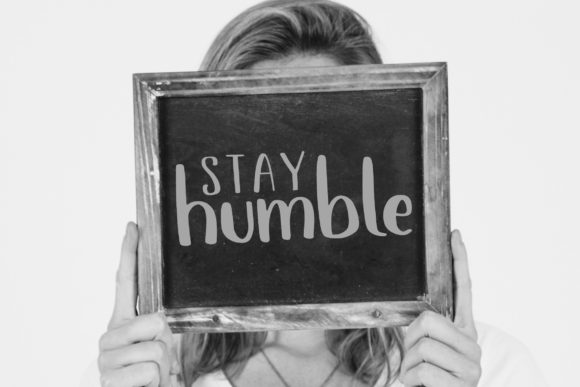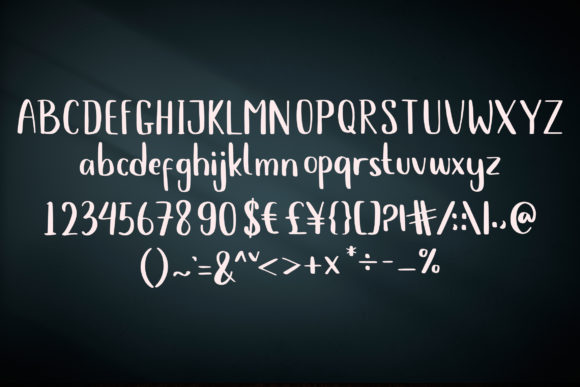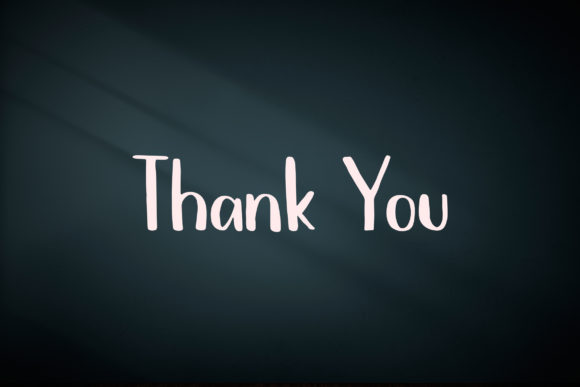
The Power of a Simple yet Elegant Font
You know that moment when a project just clicks into place, and everything starts to feel cohesive and beautiful? That’s exactly what happened when I stumbled upon the Humble Font. It’s a display font that exudes a sense of coolness and trendiness, making it the perfect addition to any design project.
As a versatile display font, Humble Font is designed to elevate any creation, whether it’s a social media post, a logo, or a marketing campaign. Its unique character and style have the potential to make your designs stand out from the crowd, and that’s exactly why it’s a valuable asset for designers.
Humble Font Key Features
- Font Family: Humble Font is a sans-serif typeface with a friendly and approachable feel.
- Language Support: Includes comprehensive language support, including Latin, Cyrillic, and Greek alphabets, covering multiple languages and scripts.
- Unique Characteristics: Features a distinctive, rounded shape with subtle rounded corners, giving it a friendly and approachable feel.
Humble Font Review
As a designer, I’ve had the chance to play around with Humble Font, and I must say, it’s been an interesting experience. ✨ Here are some things that work well:
- Customizability: Humble Font allows you to adjust various settings like letter spacing, font size, and line height to achieve the desired look.
- Legibility: The font is designed to be readable even at small sizes, making it perfect for digital content.
- Neutral tone: Humble Font has a neutral tone that makes it easy to pair with other fonts, colors, and designs.
However, there are some limitations to consider ⚠️:
- Lack of personality: Humble Font’s neutral tone might make it difficult to stand out in crowded designs.
- Limited expressive range: The font’s design is quite straightforward, which might limit its ability to convey complex emotions or ideas.
Overall, I’d say Humble Font is a solid choice for designers who prioritize readability and customizability. It’s not the most exciting font, but it gets the job done. If you’re looking for a reliable, easy-to-use font, Humble Font is definitely worth considering.
To get the most out of Humble Font, use it for:
- Headings and titles for a unique and distinctive look.
- Body text for a clean and readable font.
- Creatives and designers looking for a vintage-inspired font.
Alternatives to Humble Font
Open Sans is a clean and modern sans-serif font that is highly legible. It’s ideal for body text and is a great choice for digital products, websites, and mobile apps. Open Sans is more geometric and sleek compared to Humble Font, which is more rounded and friendly. Use Open Sans when you need a font that is both modern and professional.
Lato is a sans-serif font that is highly customizable and versatile. It’s a great choice for headings and body text, and is suitable for a wide range of applications, from print to digital. Lato has a more elegant and sophisticated feel compared to Humble Font, which is more casual and approachable. Use Lato when you need a font that is both stylish and readable.
Montserrat is a sans-serif font that is designed for digital use. It’s highly legible and is a great choice for body text and headings. Montserrat has a more urban and edgy feel compared to Humble Font, which is more friendly and approachable. Use Montserrat when you need a font that is both modern and gritty.
Avenir is a geometric sans-serif font that is highly legible and versatile. It’s a great choice for headings and body text, and is suitable for a wide range of applications, from print to digital. Avenir has a more modern and sleek feel compared to Humble Font, which is more rounded and friendly. Use Avenir when you need a font that is both sophisticated and stylish.